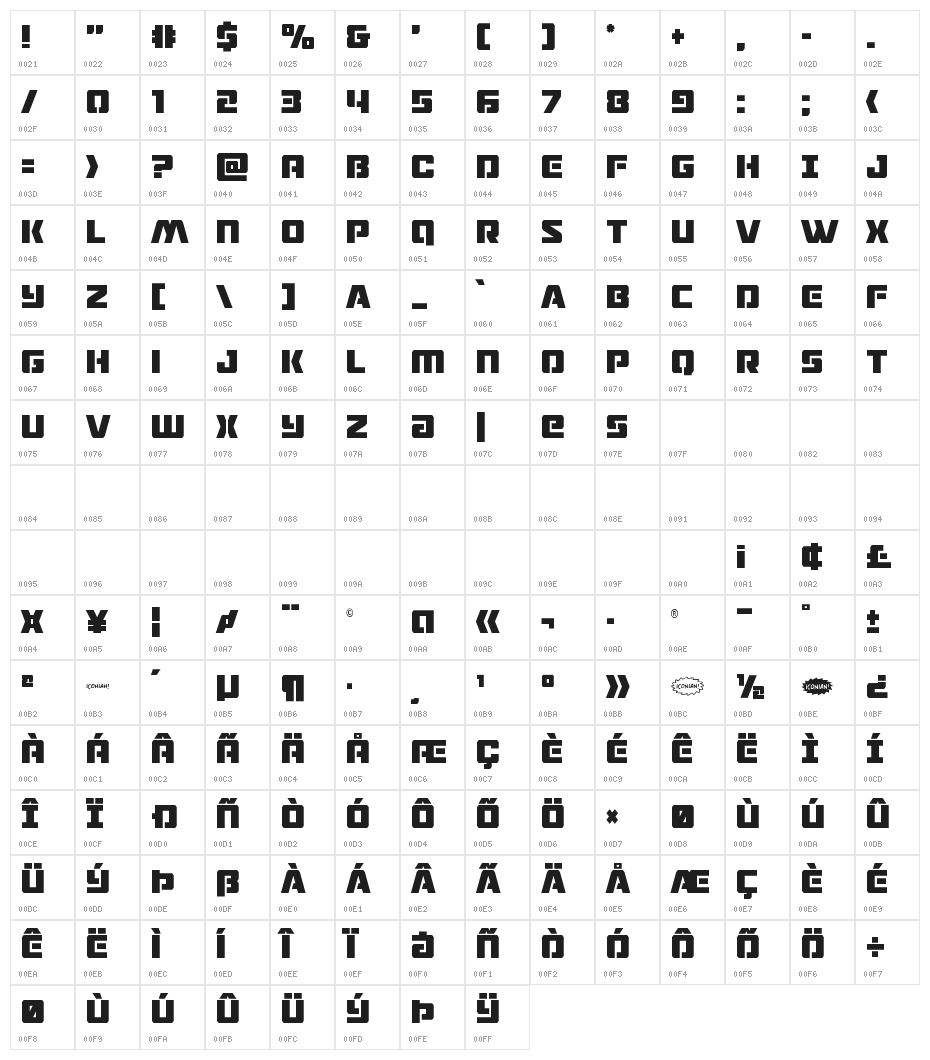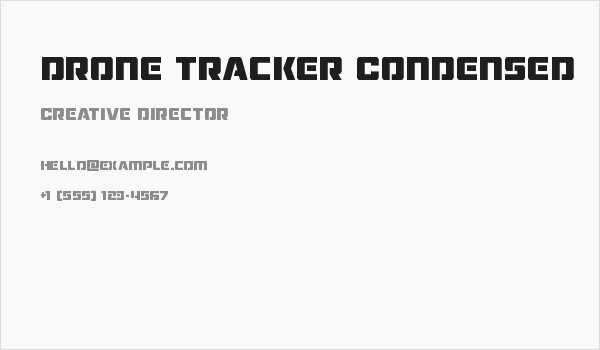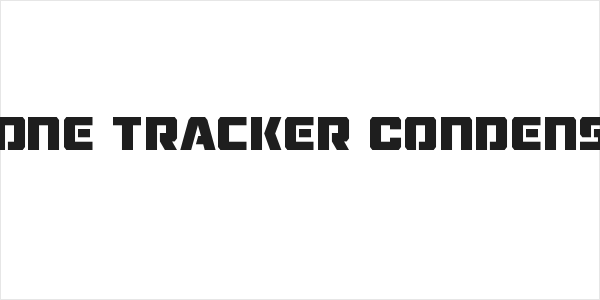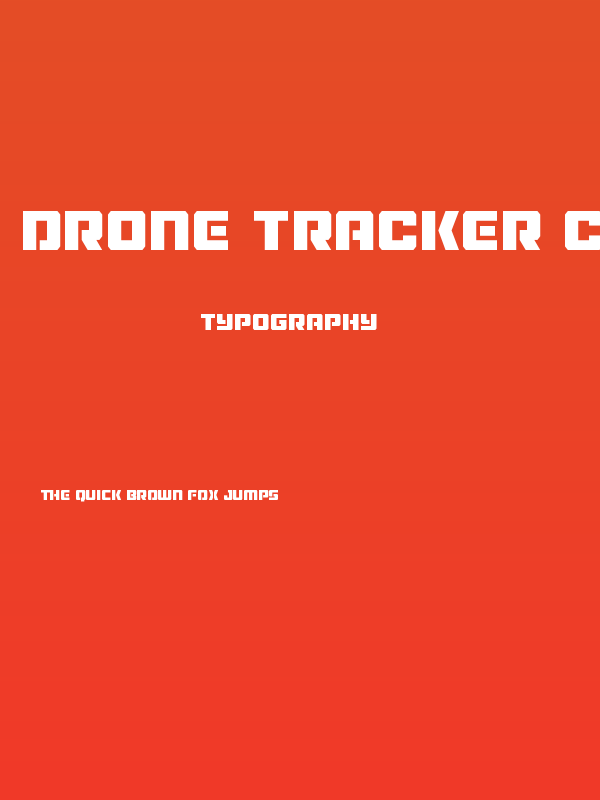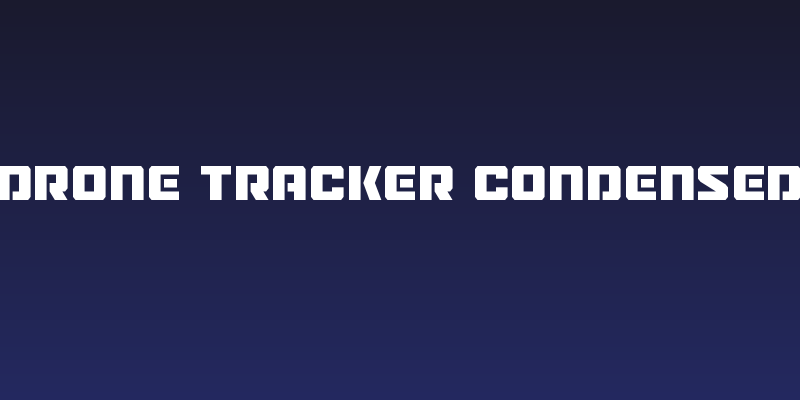
Drone Tracker Condensed Font
Drone Tracker Condensed Description
This font features a bold, geometric design with a distinctly futuristic and industrial feel. The characters are constructed with thick, blocky strokes and sharp angles, giving it a strong and commanding presence. The condensed width allows for efficient use of space, making it ideal for impactful headlines and titles. The uniformity in stroke width across characters contributes to a cohesive and structured appearance. Its unique style is suitable for projects that require a modern and edgy aesthetic, such as technology branding, video game titles, or sci-fi themed designs.
| Proposed Projects | Ideal for technology branding, video game titles, sci-fi themed designs, and impactful headlines. |